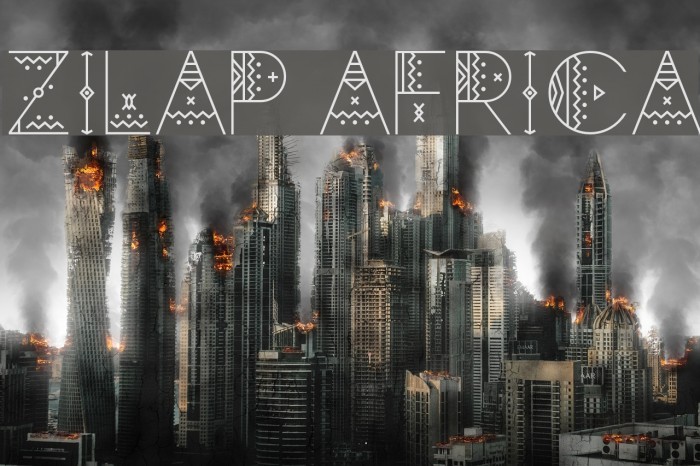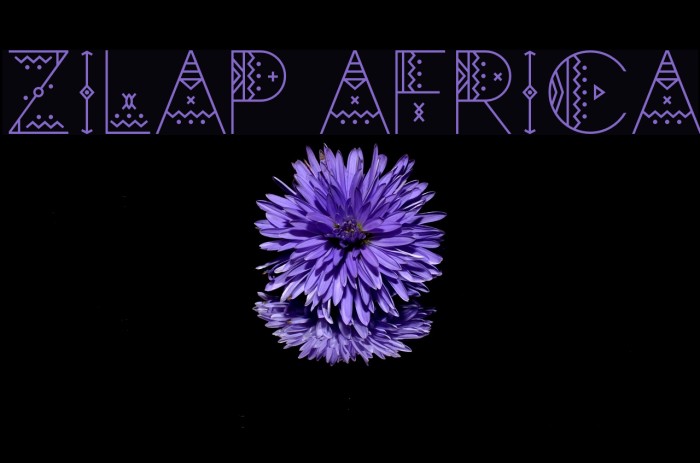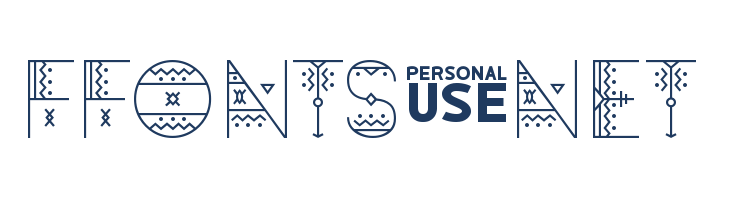
Zilap Africa Font
This font features a unique and intricate design that combines geometric patterns with traditional African motifs. Each letter is adorned with decorative elements, such as triangles, circles, and lines, creating a visually striking appearance. The uppercase letters are bold and commanding, while the lowercase letters maintain the same decorative style, ensuring consistency throughout. The font's artistic flair makes it ideal for projects that require a cultural or ethnic touch. Its detailed design is perfect for creating eye-catching headlines, posters, or branding materials that aim to stand out and convey a sense of creativity and cultural richness.
A decorative font with geometric patterns and African motifs, ideal for cultural projects.
- Proposed Projects: Perfect for cultural event posters, branding, artistic projects, and unique headlines.
- Use Case: Headlines, Posters, Branding